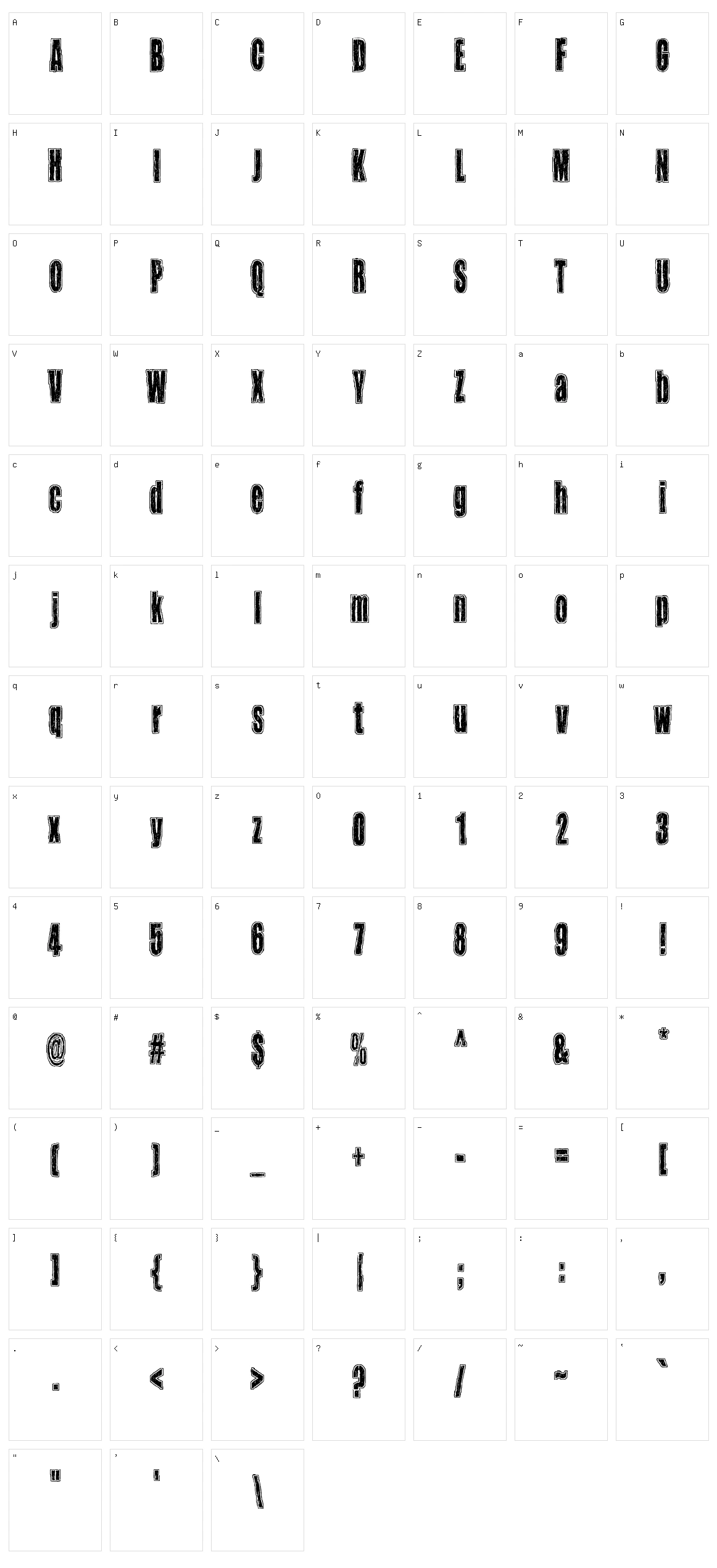
The free font Takapiru is carefully designed by junkohanhero, showcasing a thoughtful balance of creativity and usability and falls under the Eroded font style. When you download the ZIP file, it contains only 224.47 KB of font files, making it lightweight and quick to download. Please review the license details below to understand permitted usage and distribution rights. If license information is not available, we recommend using this font for personal projects only or contacting the author directly for commercial usage permissions.